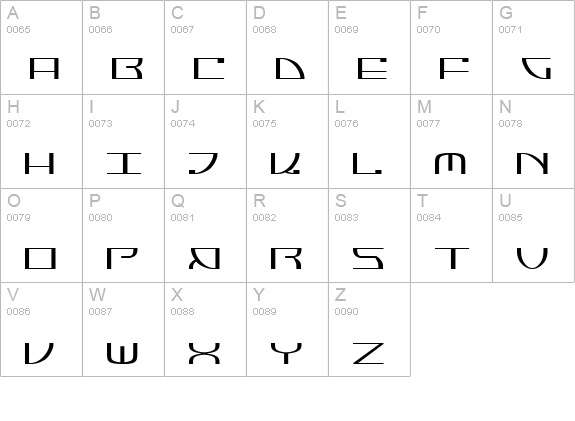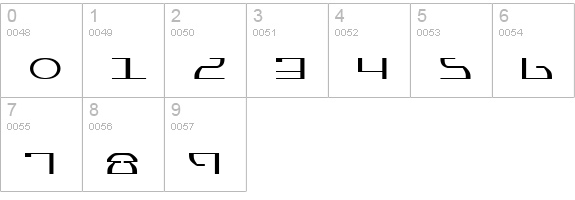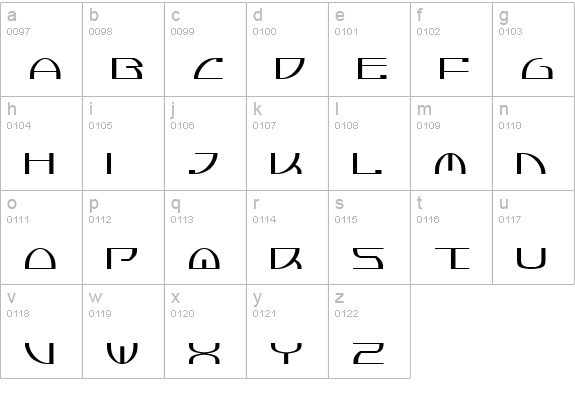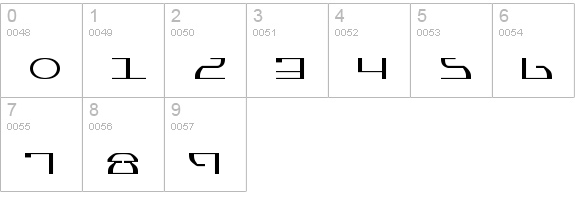
Jumptroops Light is a refined, elegant variant in the Jumptroops typeface family \xE2\x80\x94 well suited to elegant body text, refined sub-headings, and luxury branding.
Jumptroops Light font is a sleek and modern typeface perfect for adding a touch of elegance to your designs. Its clean lines and subtle curves make it versatile for a wide range of projects, from branding to editorial design. The light weight of this font gives it a delicate and airy feel, making it ideal for conveying a sense of sophistication and refinement. And the best part? Jumptroops Light font is completely free to download! You can get your hands on this gorgeous font at FontsMarket.com, where you'll find a wide selection of high-quality fonts ready to elevate your creative projects. Don't miss out on the opportunity to add Jumptroops Light font to your font library today!